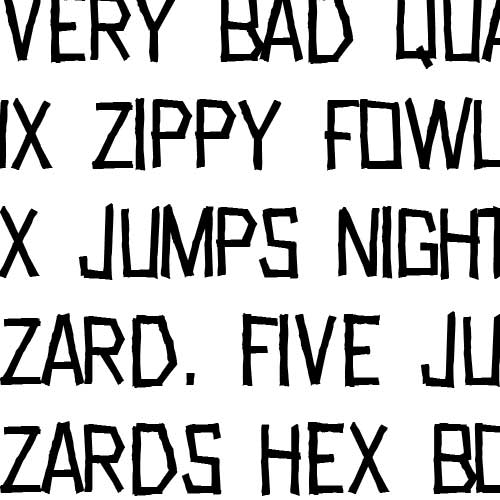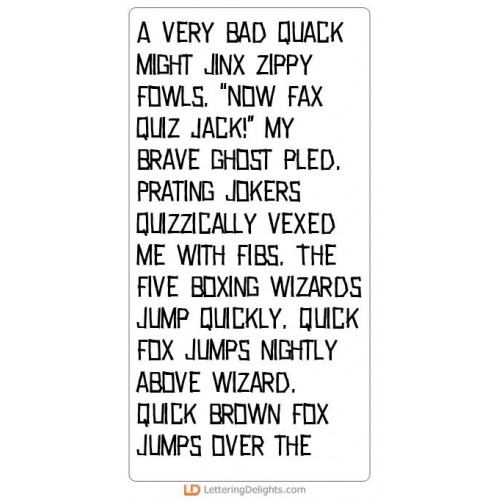
LD Masking Tape - Font
LD Masking Tape with its rough edged style looks just like real masking tape. LD Masking Tape makes a great title or caption for your digital scrapbook pages